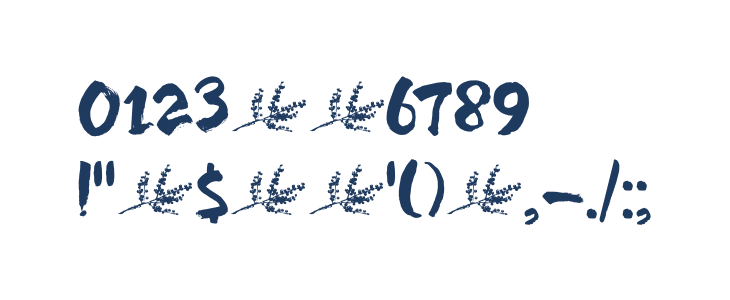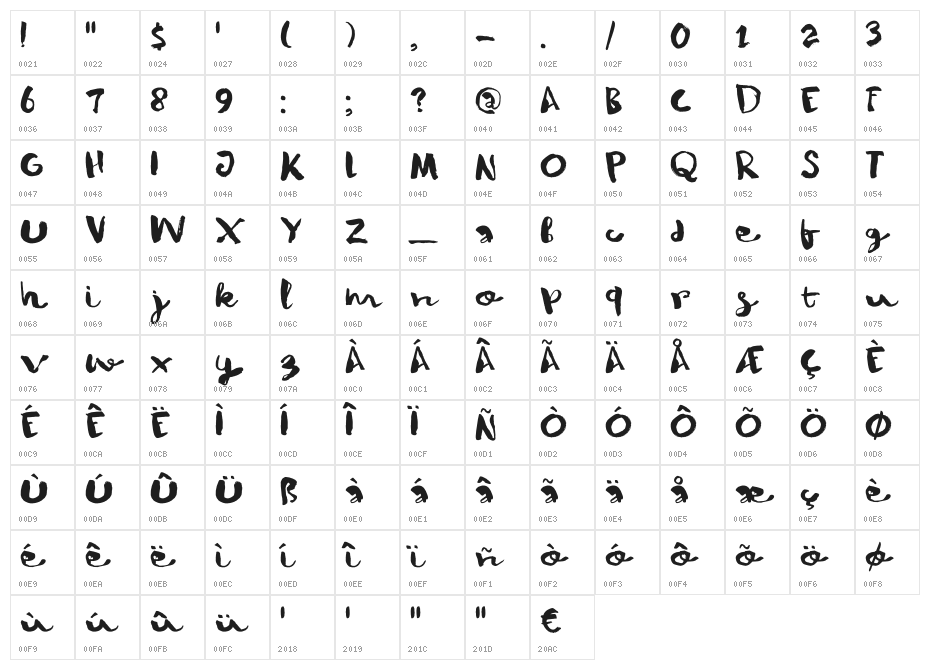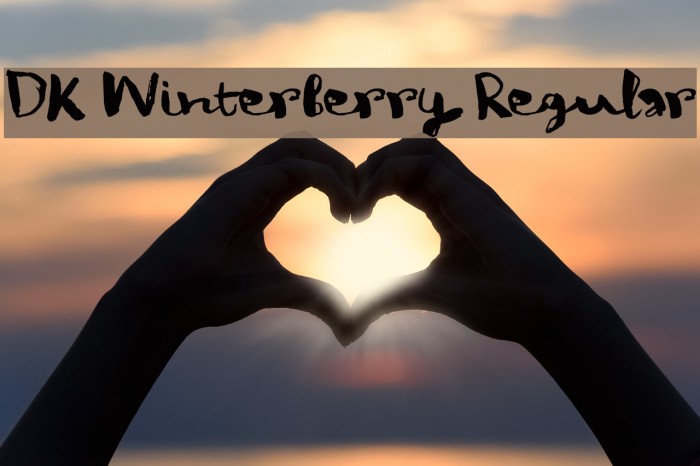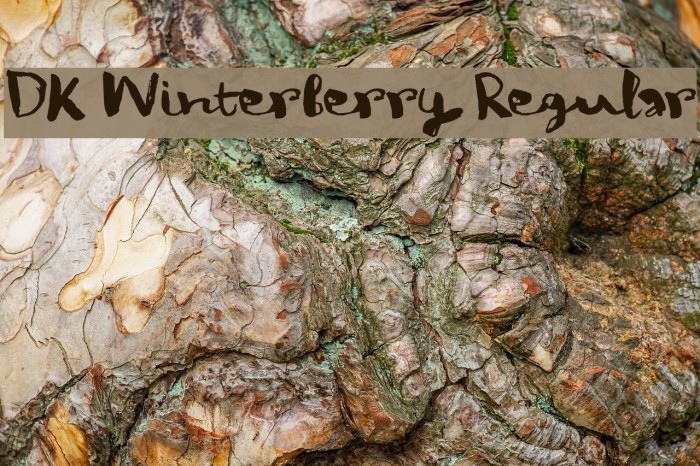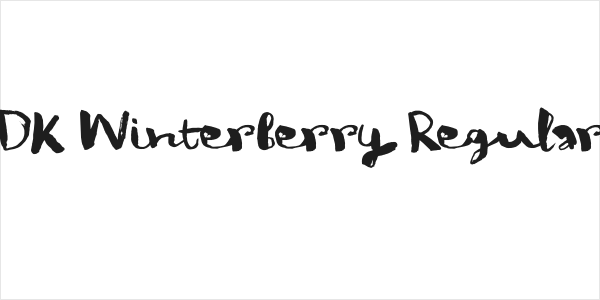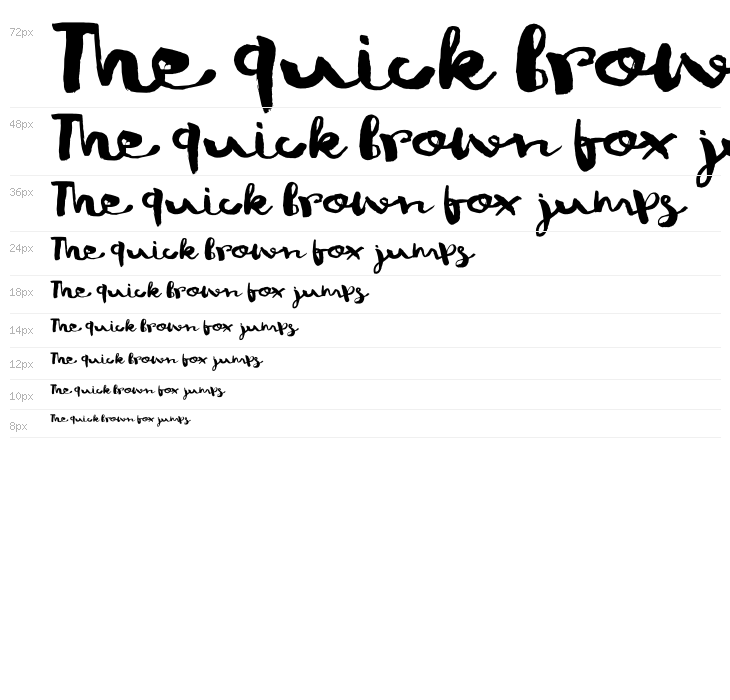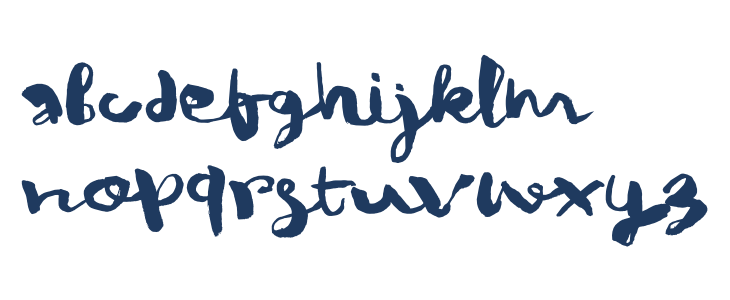
DK Winterberry Regular Font
DK Winterberry Regular Description
This font exudes a bold and expressive handwritten style, characterized by its brush-like strokes and dynamic flow. The uppercase letters are robust and slightly irregular, giving a sense of artistic flair and spontaneity. The lowercase letters maintain a consistent fluidity, with some characters featuring unique loops and swirls that add to the font's charm. The numerals are equally bold, with a playful yet legible appearance. Special characters are creatively integrated, maintaining the overall aesthetic. This font is perfect for projects that require a personal touch or an artistic edge.
| Proposed Projects | Ideal for greeting cards, artistic posters, branding projects, and creative invitations. |